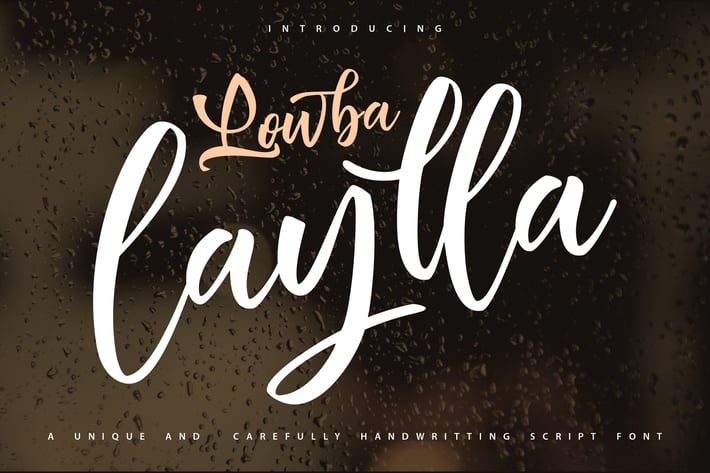
LowbaLaylla | Unique Handwriting Script Font
LowbaLaylla | Unique Handwriting Script Font with a calligraphy style, So beautiful on invitation like greeting cards, branding materials, business cards, quotes, posters, and more!